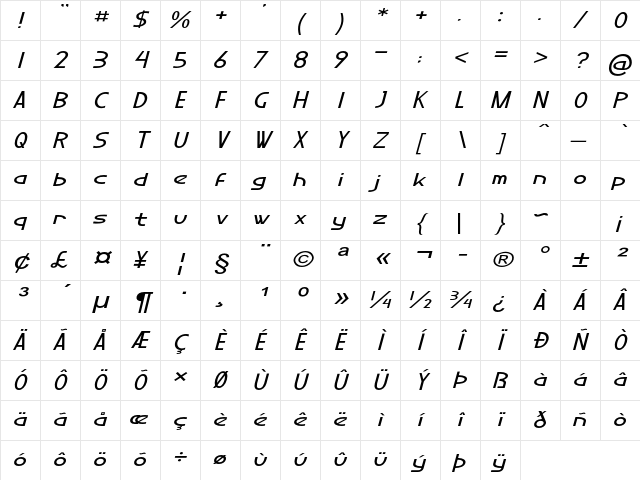
Pathos Expanded Italic Free Font
Pathos Expanded Italic
Style: Expanded Italic
Pathos Family
Pathos Expanded Italic
Design Context for Pathos
Pathos is a composed and adaptable typeface that performs quietly and consistently across a wide range of design contexts. The slanted form adds forward momentum and visual energy.